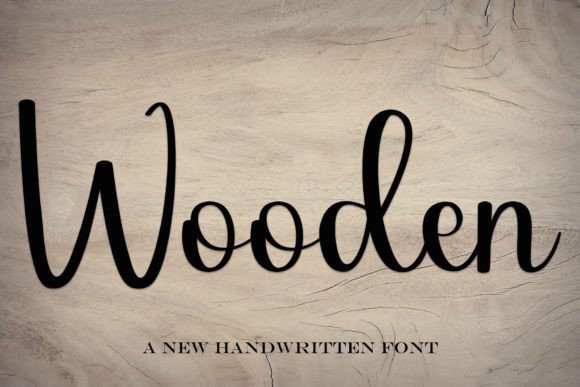
Experience the Allure of Wooden Font: A Handcrafted Masterpiece for Script Lovers!
In a world of digital artistry, let Wooden Font transport you to a realm of enchanting beauty and timeless elegance. This remarkable script font, crafted with meticulous attention to detail by the visionary Putrasyahreza00, is an ode to the art of calligraphy. Each letter, a work of art in itself, exudes a delicate charm that captivates the senses.
If you seek a font that whispers of romance, sophistication, and a touch of nostalgia, Wooden Font is your muse. Its graceful lines evoke the elegance of a bygone era, while its modern sensibility keeps it firmly rooted in the present. Fall in love with its incredibly versatile style, capable of transforming any design into a captivating masterpiece.
Whether you're a seasoned designer or a creative enthusiast, Wooden Font is the perfect companion for your creative pursuits. Its boundless potential knows no limits, from heartfelt wedding invitations and alluring branding logos to enchanting social media graphics and captivating handwritten notes. Unleash your creativity and witness the magic unfold as Wooden Font breathes life into your designs.
With Wooden Font, you'll discover a font that transcends the ordinary. Its unique and well-balanced letters dance harmoniously across the page, creating a visual symphony that draws the eye and captivates the heart. Let Wooden Font be your gateway to a world of design possibilities, where elegance and creativity intertwine to create experiences that leave a lasting impression.
Embrace the allure of Wooden Font and elevate your designs to new heights. Let its delicate curves and enchanting charm captivate your audience and leave them spellbound. Experience the difference that a remarkable font can make - Wooden Font, the ultimate choice for script lovers seeking the extraordinary.